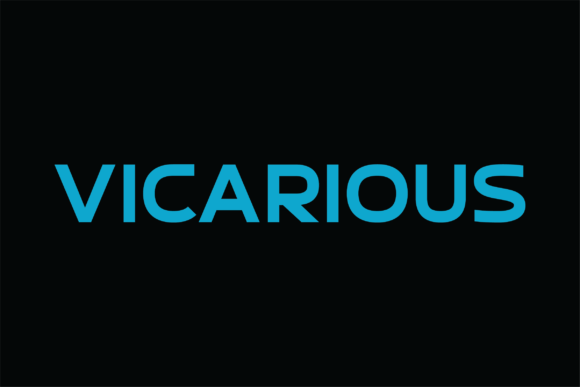
Introducing Vicarious Font: The Quintessential Sans Serif for Dazzling Designs
Discover Vicarious, the captivating sans serif font that elevates your designs to new heights. This versatile typeface is a masterpiece of modern calligraphy, blending classic elegance with contemporary flair. Its clean lines and refined curves exude sophistication and charm, making it the perfect choice for a wide range of creative projects.
Unleash your creativity with Vicarious, the font that effortlessly adds a touch of luxury to your logos, wedding invitations, quotes, advertisements, and more. Its timeless beauty shines through in print, magazines, and digital media, leaving a lasting impression on your audience.
Immerse yourself in the world of Vicarious, where imagination knows no bounds. Its meticulously crafted characters dance across the page, evoking emotions and captivating your readers. Experience the joy of transforming your words into stunning visuals, whether you're designing for a corporate presentation or a heartfelt personal message.